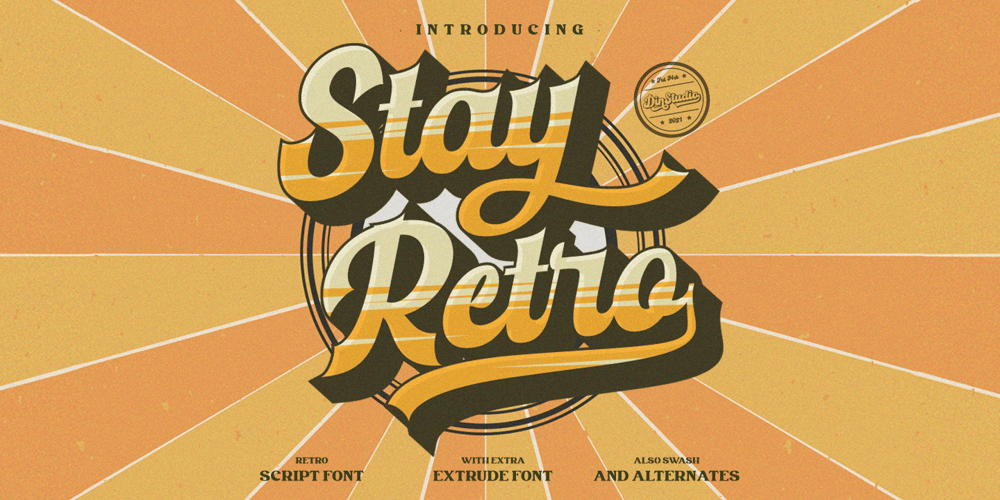
Stay Retro Font Family was designed by Donis Miftahudin and published by Din Studio. Stay Retro contains 2 styles and family package options. Have you been looking for a script font with touch of retro style? Do you dream of creating headings that stand out and inspire creativity, imagination, and endless fun? Then we’ve got just the font for you! Introducing Stay Retro-A Script FontThis bubble script font can be used for a host of different content needs and projects. An excellent choice to add the right amount of street vibe and playfulness. Create gorgeous printed quotes, standout packaging, or beautiful t-shirts! You can even use it to create amazing headings, logos, menus, and social media graphics. Stay Retro includes multilingual options to make your branding reach a global audience. Features: Standard Ligatures Stylistic Sets Swashes Multilingual Support PUA Encoded Numerals and Punctuation Thank you for downloading premium fonts from Din Studio